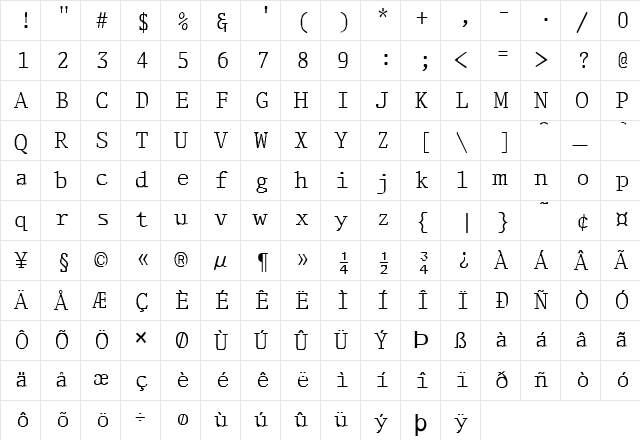
FZ DIGITAL 1 Normal
Design Context for FZ DIGITAL 1 Typeface
FZ DIGITAL 1 channels digital-age aesthetics through its sharp, structured letterforms — ideal for brands that want to signal innovation.
Pro Tip: Use FZ DIGITAL 1 in combination with a neutral sans for body text. Let it define the brand voice in headlines while keeping reading comfortable elsewhere.